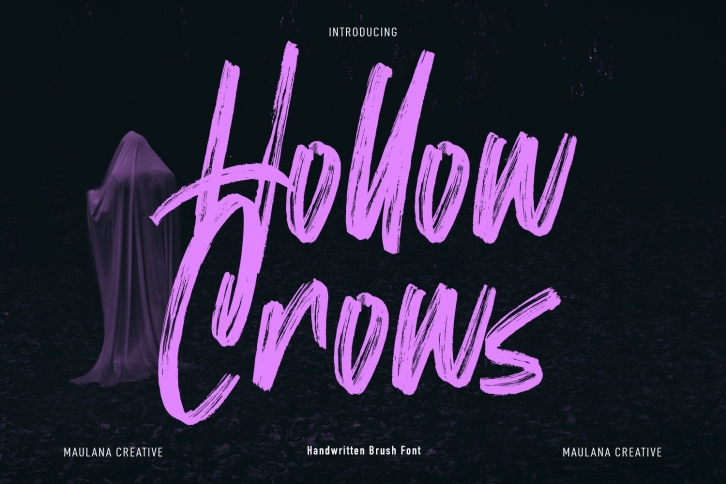
Hollow Crows Handwritten Brush is a beautiful font that was designed by Maulana Creative. It's a great choice for designers and creatives who need such a font. It was released on October 8, 2022 and the file size is 7.92 MB. Hollow Crows Handwritten Brush may give a more youthful, expressive and casual look to your project. It is a very beautiful, refined, elegant, and high-quality font.